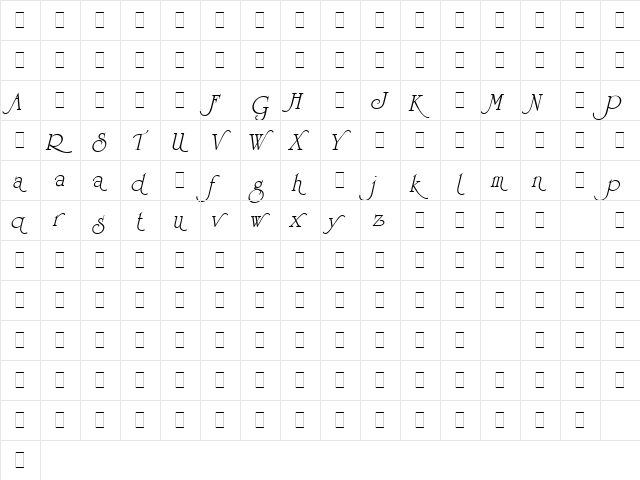
University Roman It Alts LET Plain Font Preview
University Roman It Alts LET Plain
University Roman It Alts LET Plain Font Details
Design Context for University Roman It Alts LET Typeface
University Roman It Alts LET offers clean, dependable letterforms without strong stylistic allegiance, making it a practical choice for designers who need flexibility.